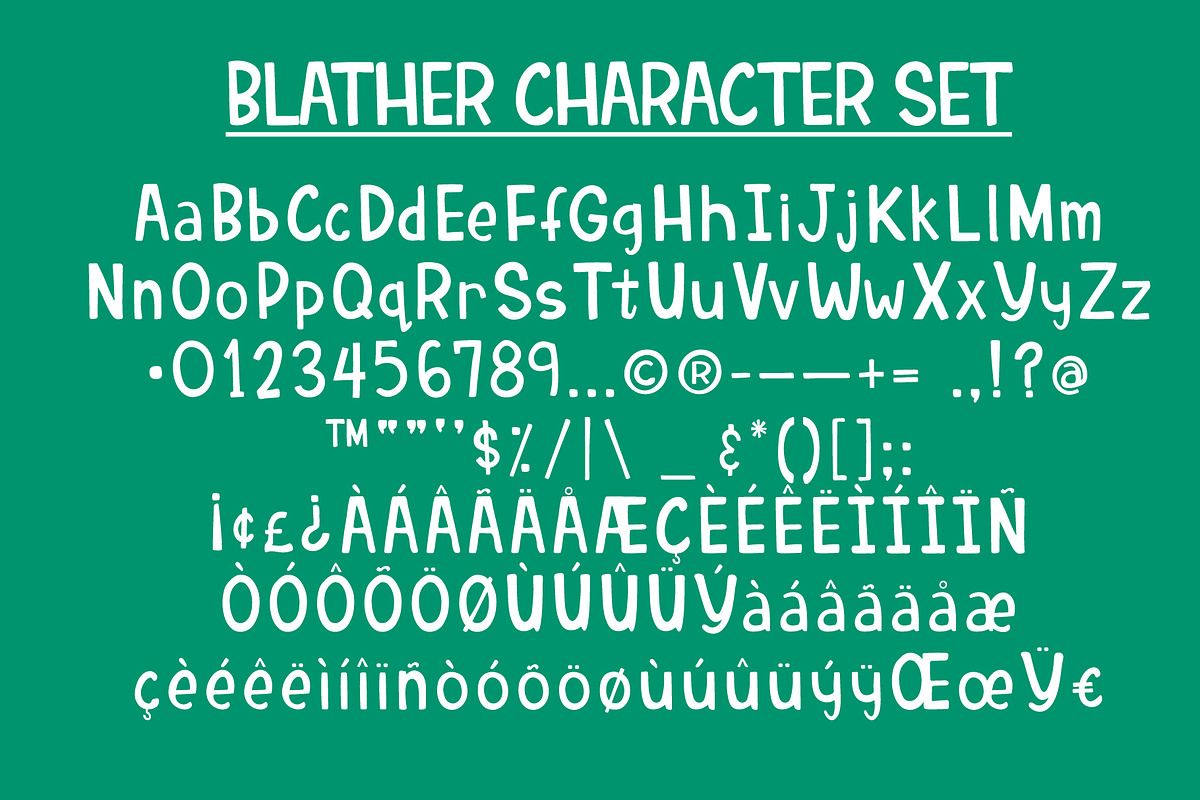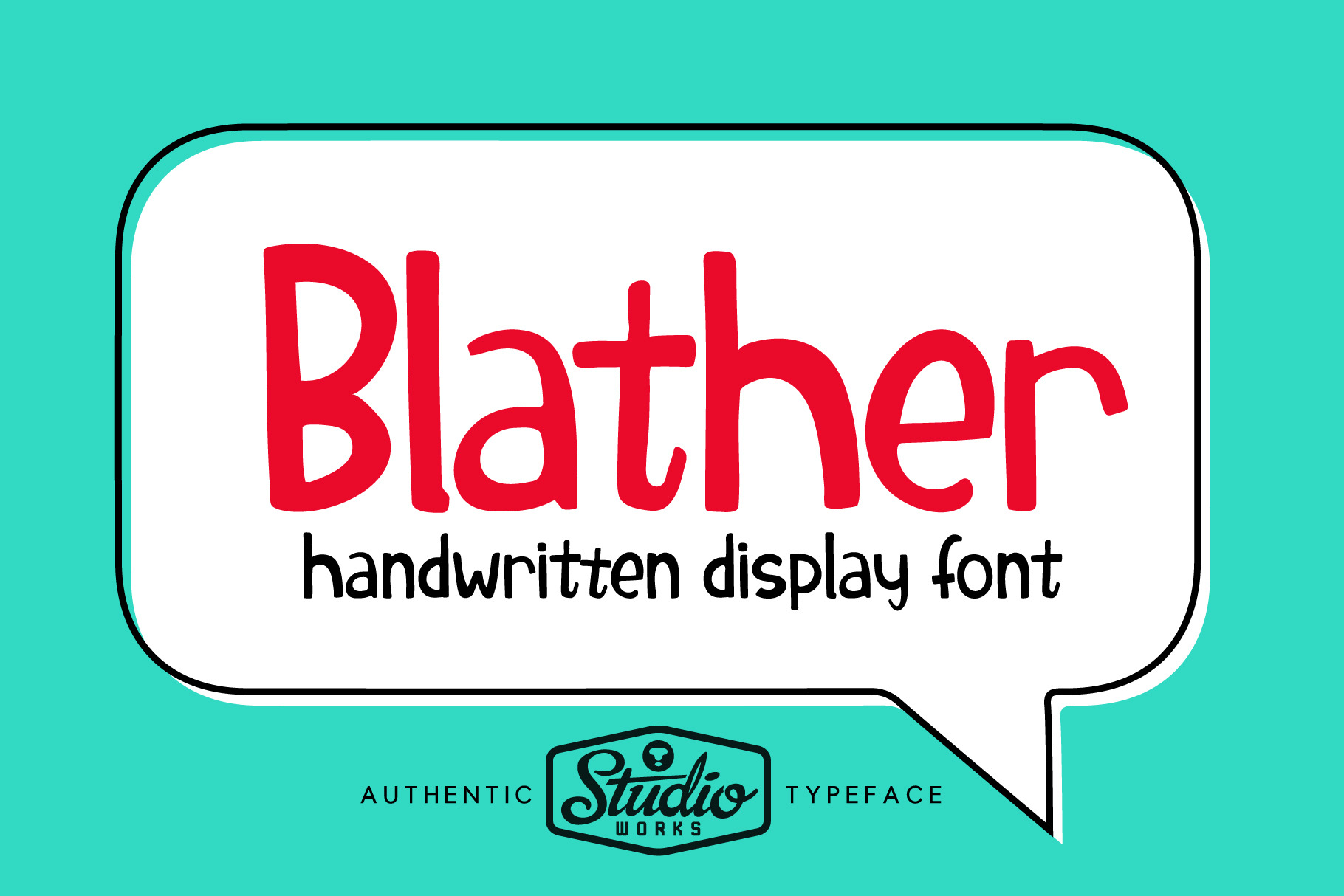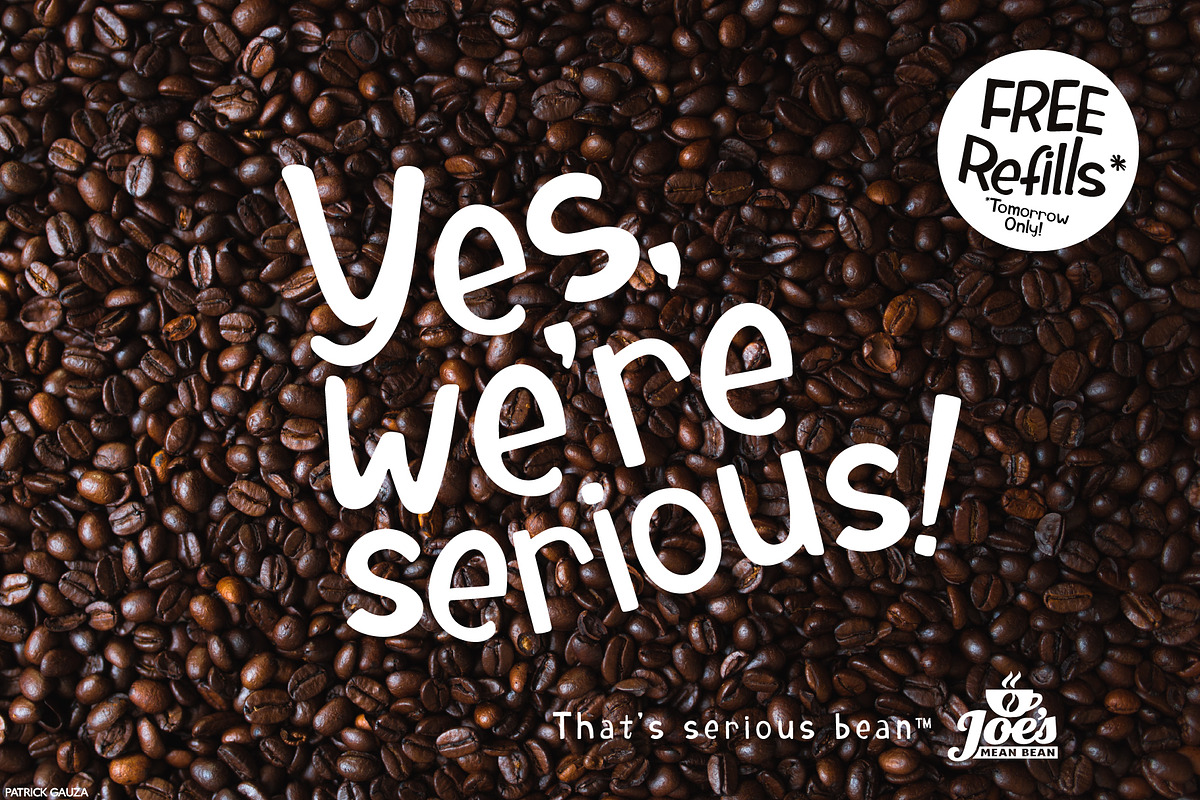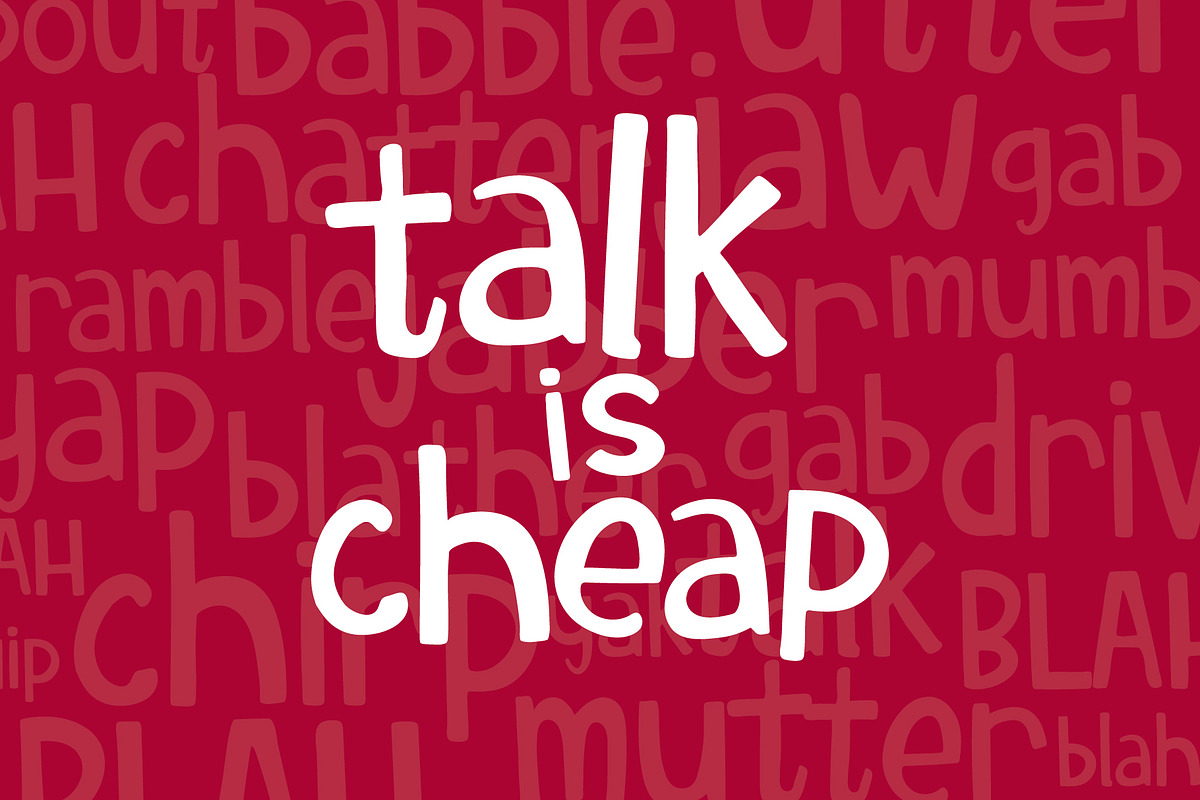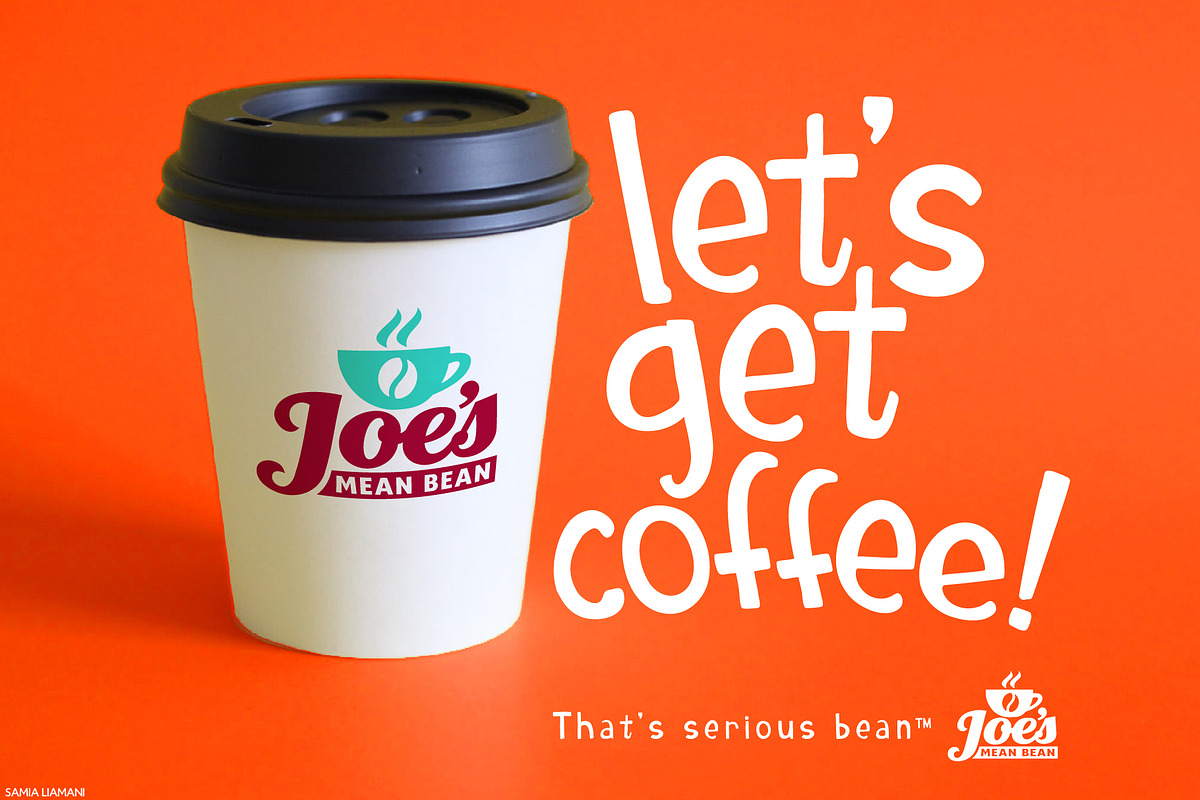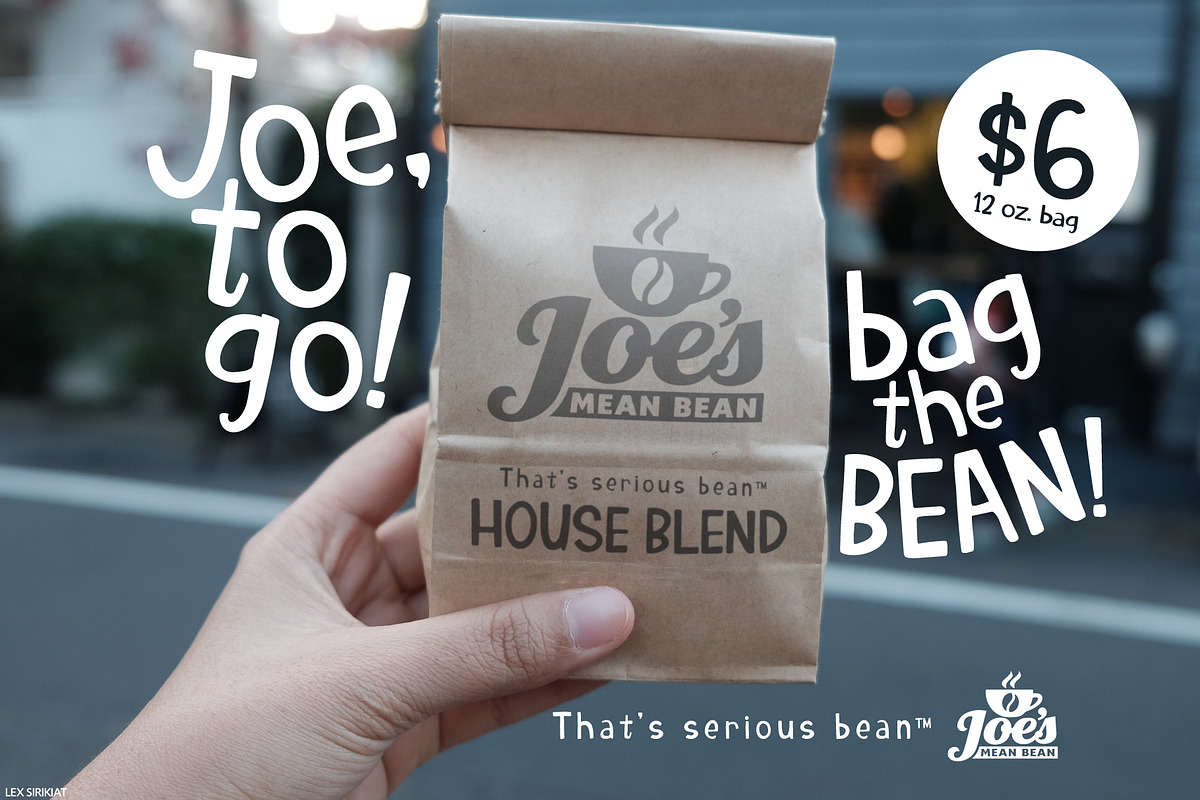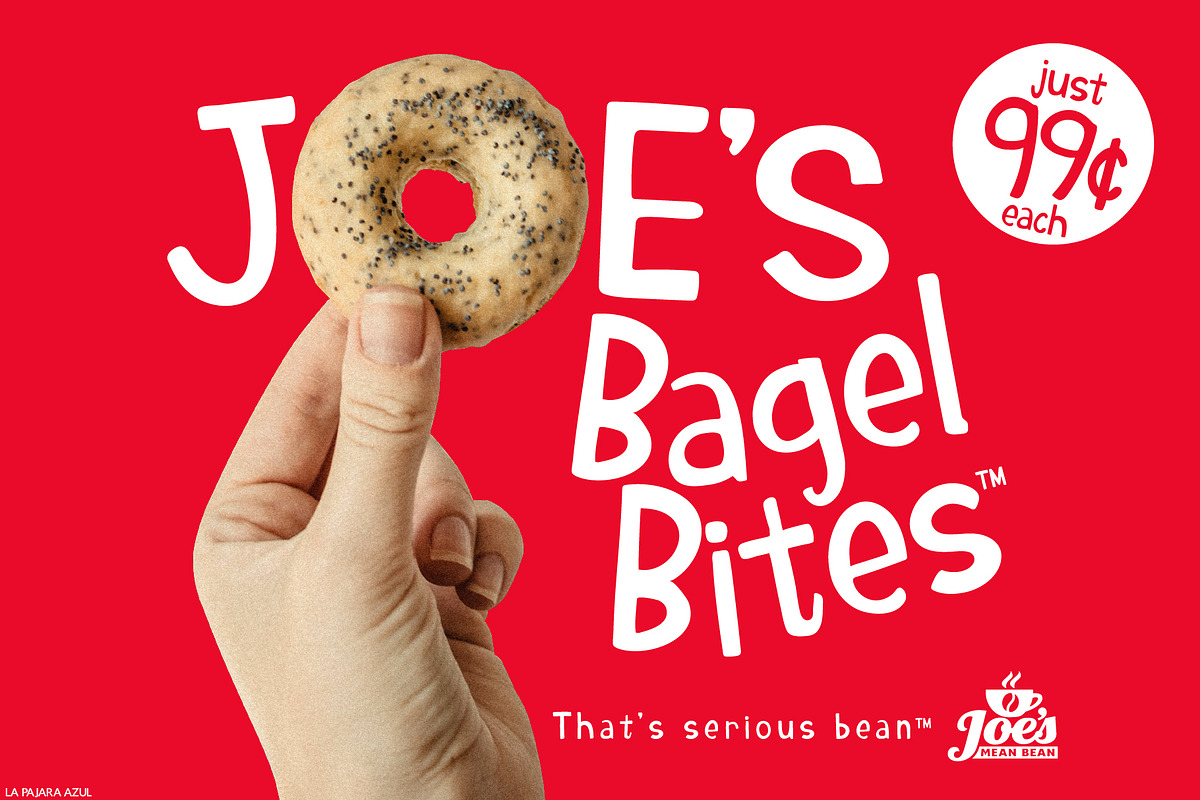
Blather | Handwritten Display Font
We can’t say enough about — B L A T H E R — a playful, handwritten display typeface from StudioWorks.
Like blowing a raspberry during the Gettysburg Address, Blather converts long-winded manuscripts into energetic, light-hearted banter. Blather delivers just the right amount of fun-loving silliness with its relaxed, hand-rendered characters. Perfect for displaying concepts that are youthful, comical or unabashedly casual.
- Upper (A-Z) and lower case (a-z) characters
- Numbers (0-9)
- Basic Punctuation
- Special characters (including hashtag, at sign, copyright, registered and trademark symbols)
- Multilingual characters and punctuation
Use Blather on greeting cards, children’s books, party invitations or any piece that needs a touch of creative whimsy.